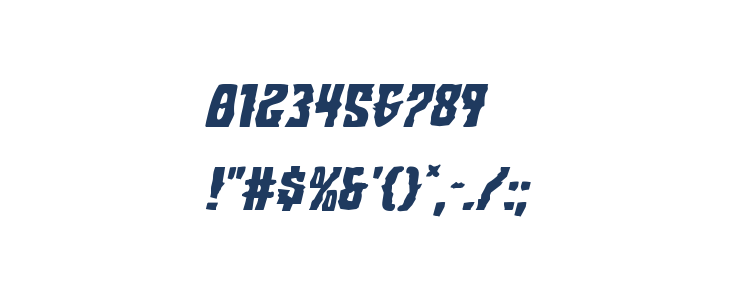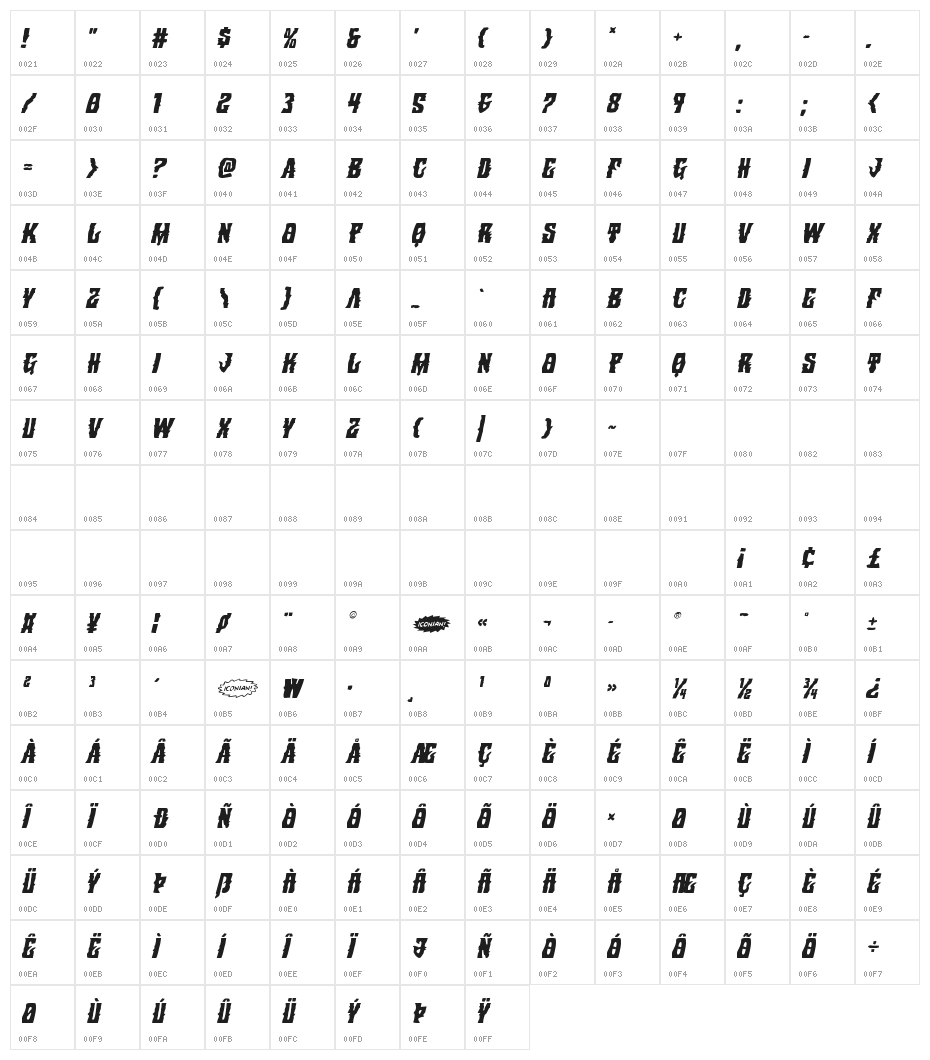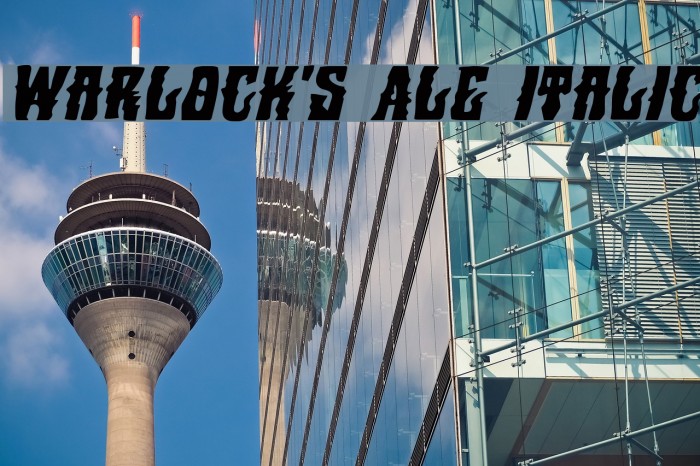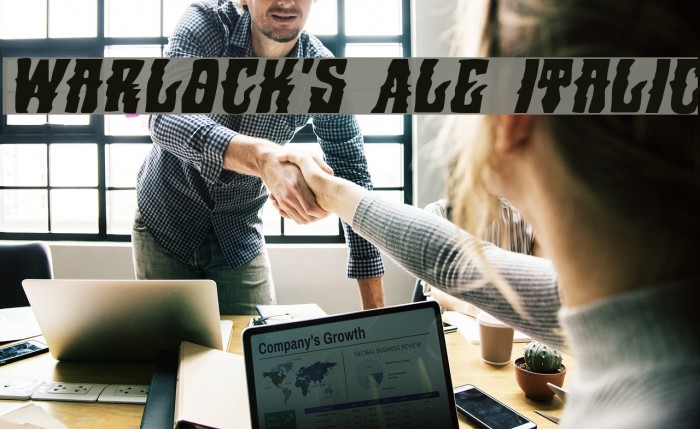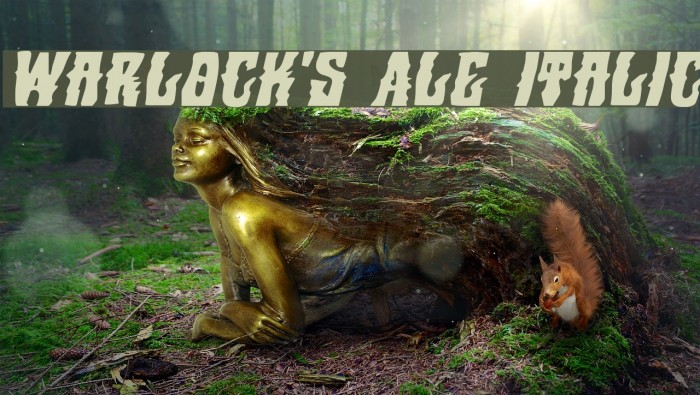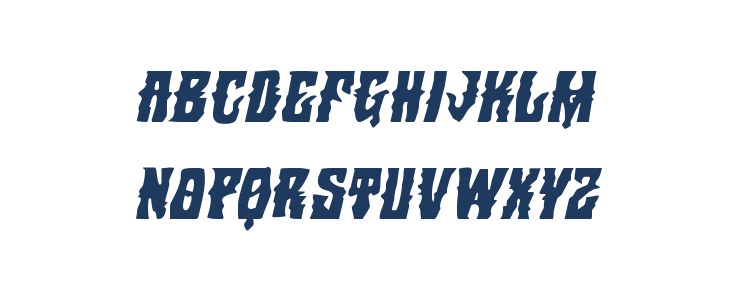
Warlock's Ale Italic Font
Warlock's Ale Italic Description
This font features a bold and dramatic style with a distinct gothic flair, characterized by sharp, angular edges and a slightly distressed appearance. The letters are heavily stylized, giving an impression of movement and energy, suitable for creating a sense of mystery or fantasy. The uppercase and lowercase letters maintain a consistent design, with numbers and special characters following the same aesthetic. The font's unique design makes it stand out, ideal for projects that require a bold statement.